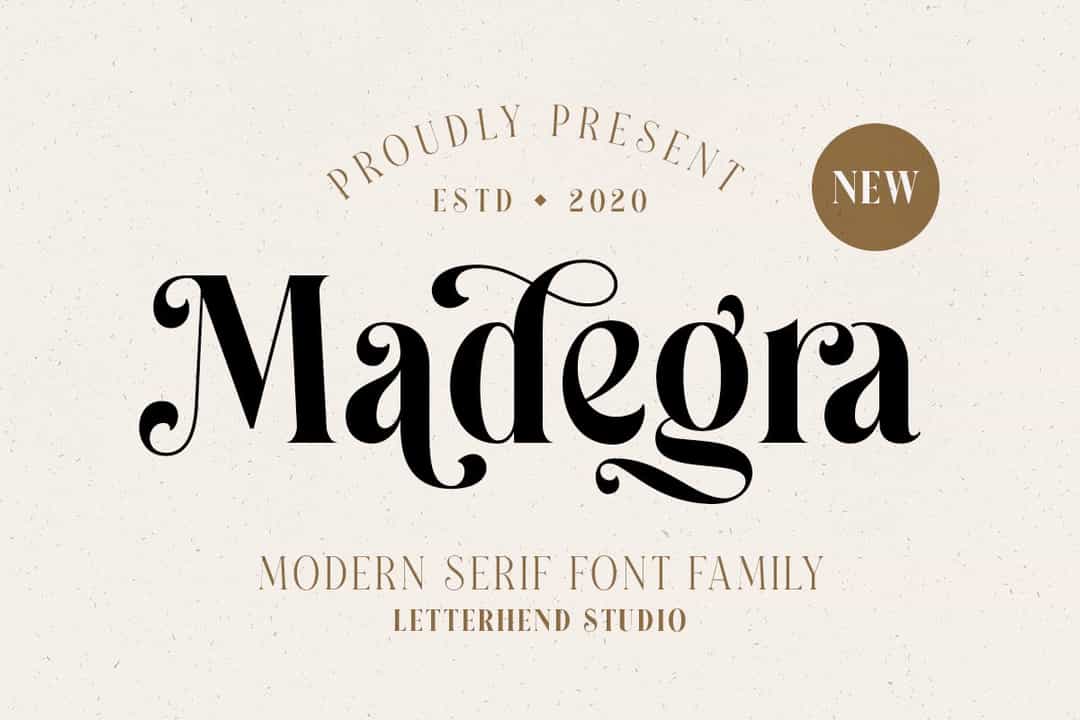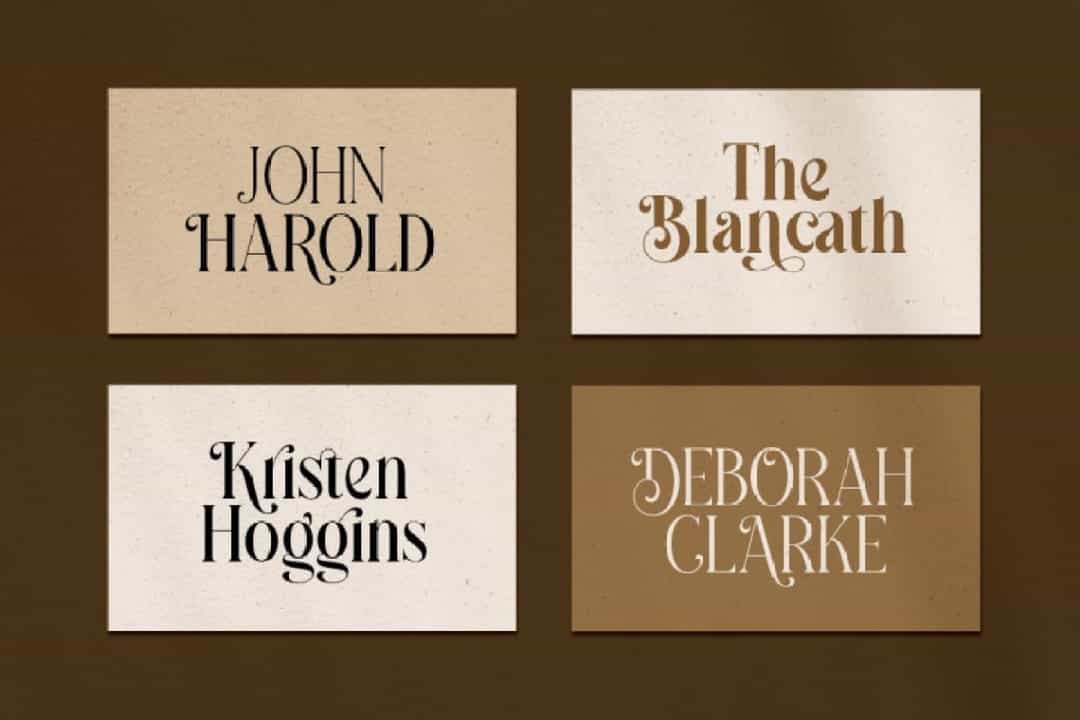
Madegra is a modern elegant serif font. This typeface is provided in several styles that have swashes which will enhance your logo or lettering design. A serrif type of font is quite formal and being neat and clean and swirl swashes added on it makes it more specific. Especially when it comes to this family, they have provided 9 different weights for you to choose from!